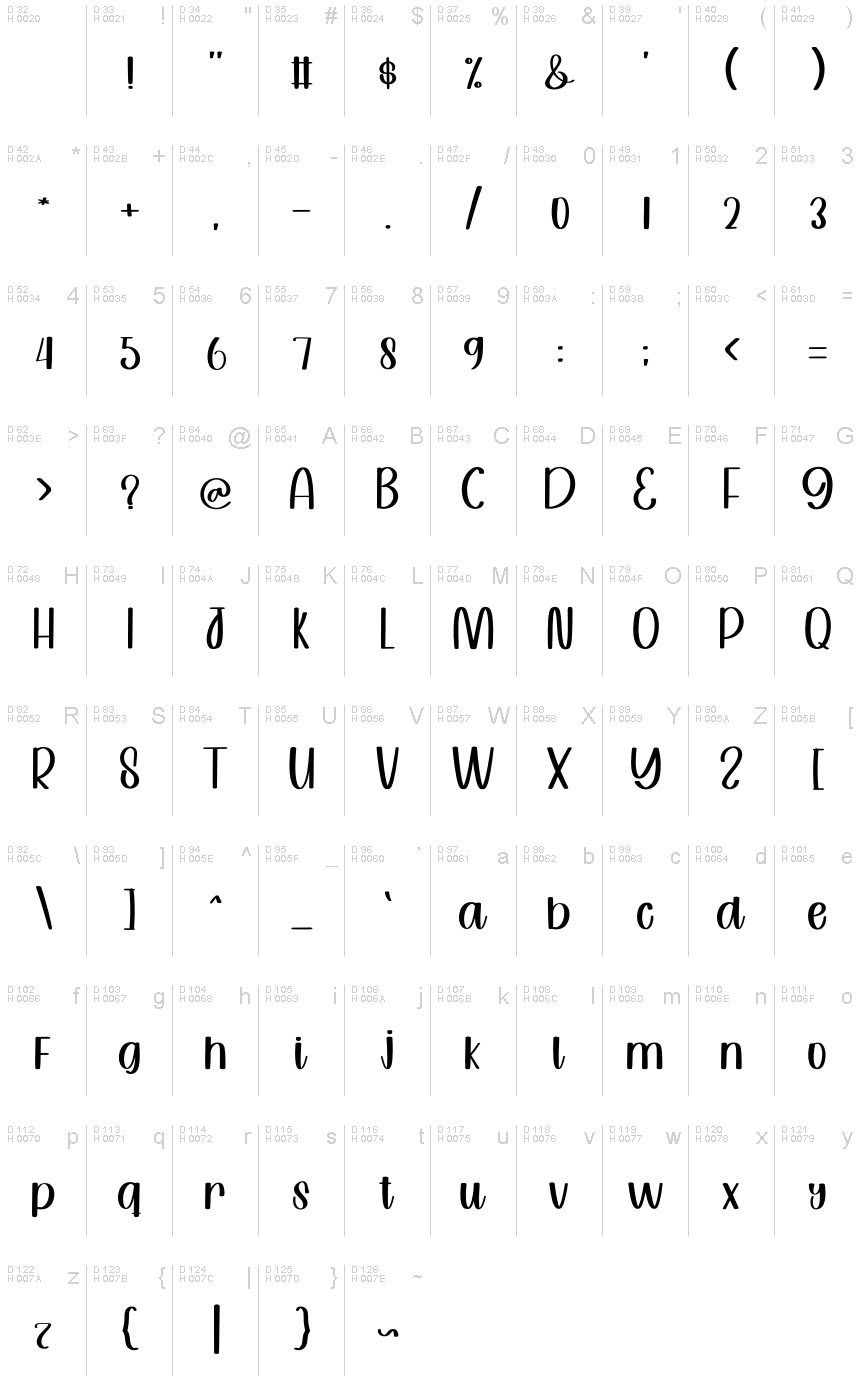
Winter Rain
Winter Rain, a creation by PiPi Creative, exudes the charm and elegance of handwritten script with its fluid curves and delicate strokes. Each letter flows into the next, capturing a sense of personal touch and intimacy that is often sought after in bespoke designs. This font's organic nature brings to mind the gentle yet persistent patter of rain on a cold winter day, evoking both comfort and nostalgia.
Ideal for projects that require an authentic handcrafted feel, Winter Rain shines in applications such as wedding invitations, personalized stationery, and unique branding initiatives. Its aesthetic appeal lies in its ability to convey warmth and individuality, making it a go-to choice for designers looking to add a human element to their work.